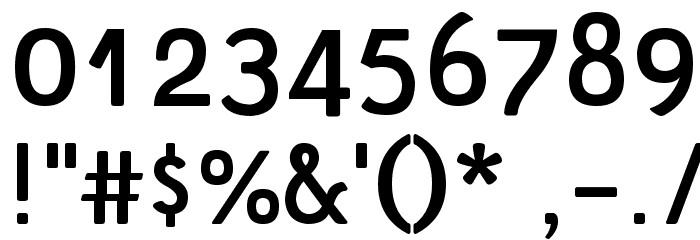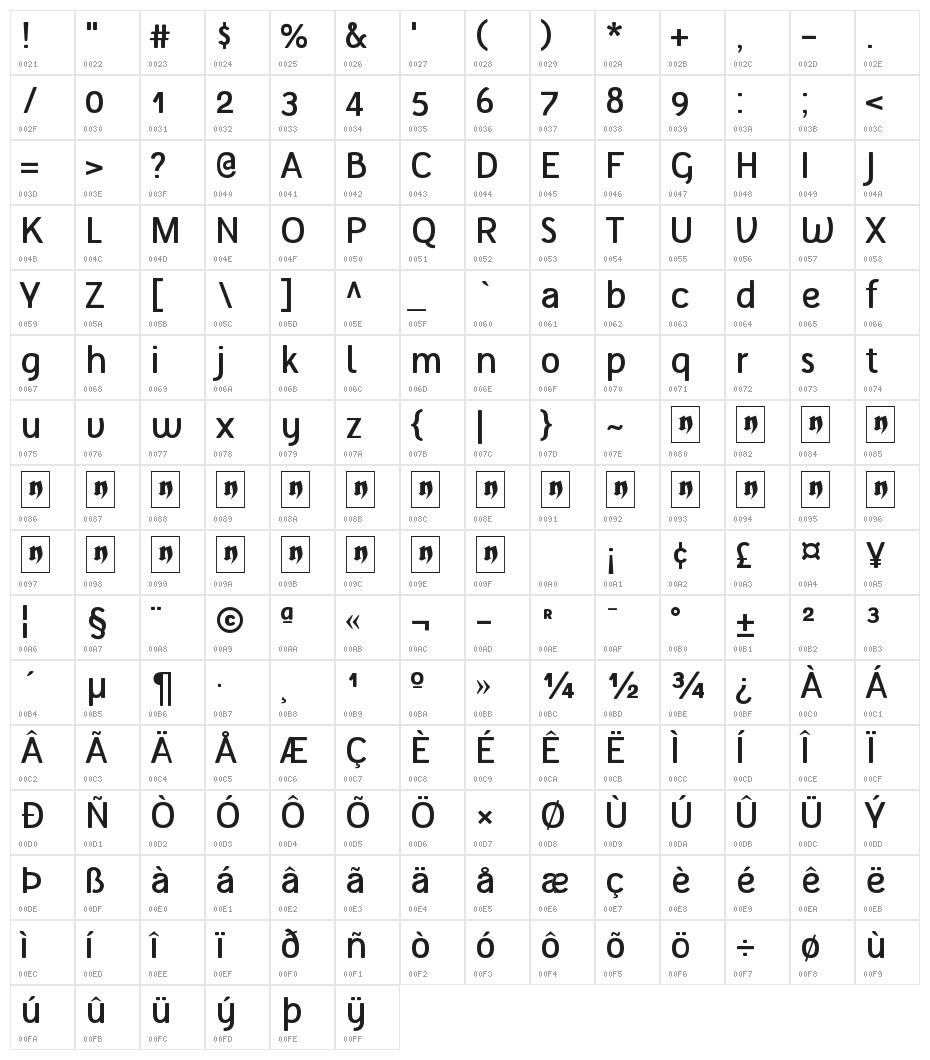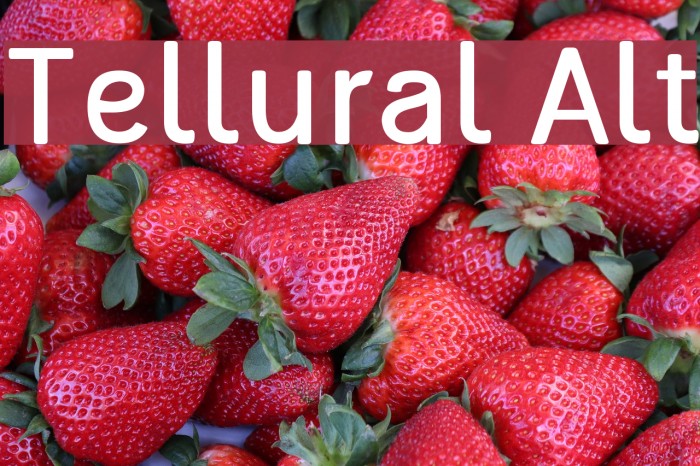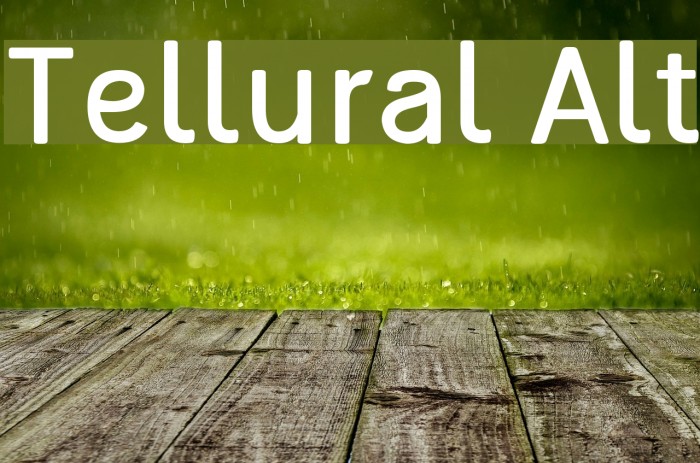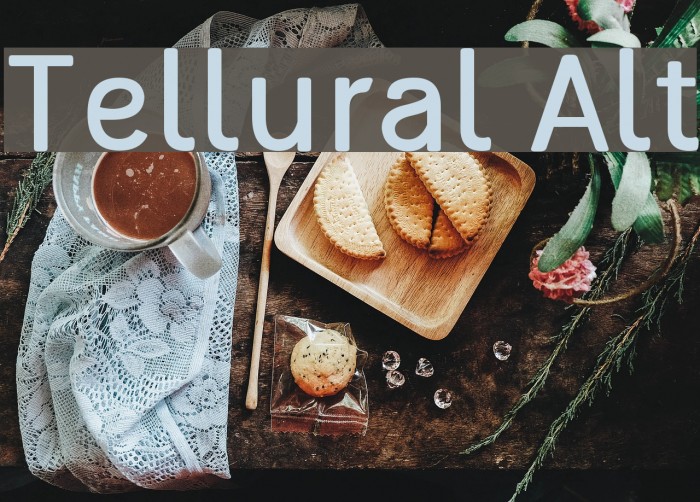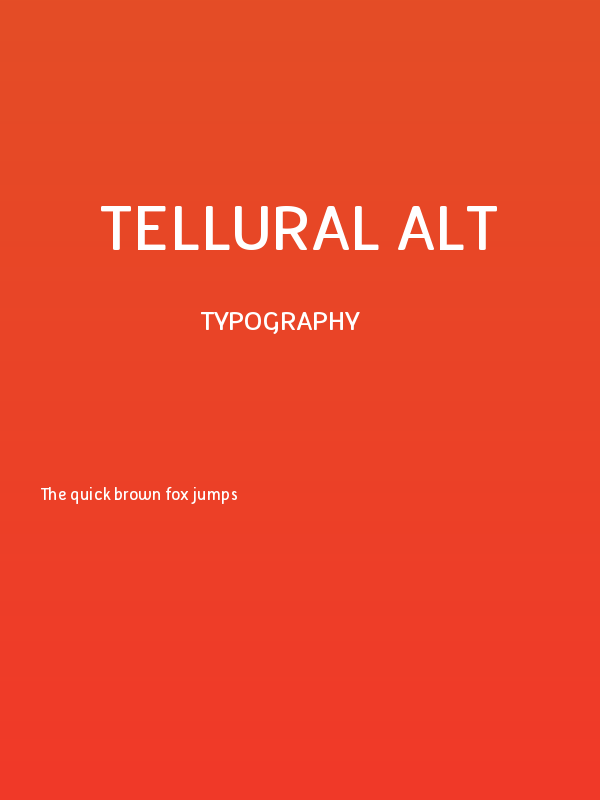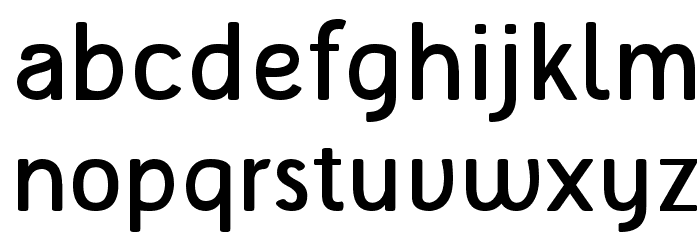
Tellural Alt Font
Tellural Alt Description
This font features a clean and modern sans-serif style with smooth curves and a uniform stroke width. The uppercase letters are bold and assertive, while the lowercase letters maintain a friendly and approachable appearance. The numerals are clear and easy to read, making them suitable for various applications. Special characters are well-designed, ensuring consistency across different uses. The overall design is versatile, making it suitable for both digital and print media.
| Proposed Projects | Ideal for branding, web design, advertising, and editorial layouts. |